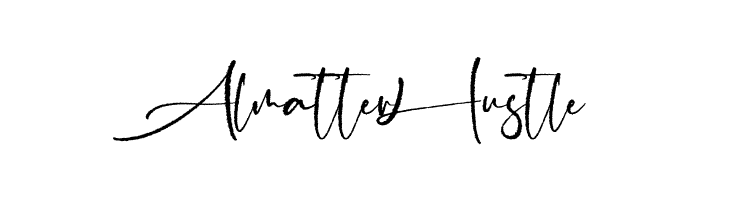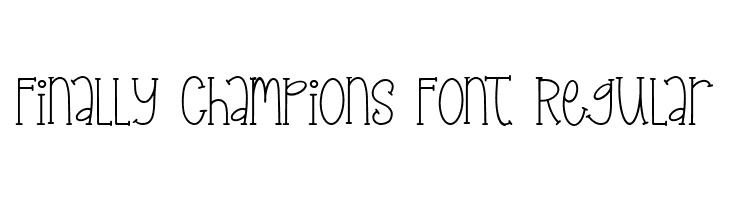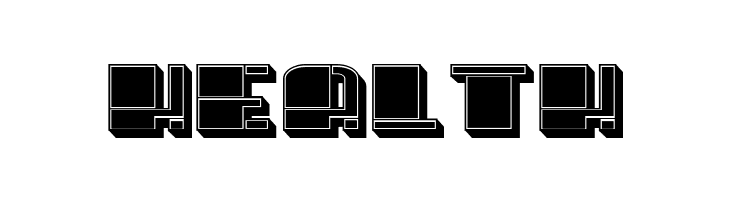
A whimsical, hand-drawn font with tall, narrow letters and playful curves.
A modern, semi-bold italic font with rounded edges and medium contrast.
A bold, geometric font with a modern, three-dimensional style.
A bold, condensed font with characters enclosed in folder-like outlines, offering a playful and modern style.
An elegant and flowing script font with dynamic, cursive strokes.
Invalid font image with only swashes.
A rough, condensed, semi-italic font with a gritty, dynamic style.
A whimsical, handwritten font with dynamic, uneven strokes.
An elegant script font with intricate swashes and medium contrast, perfect for decorative uses.
A bold, italicized font with rounded edges and a modern, dynamic style.